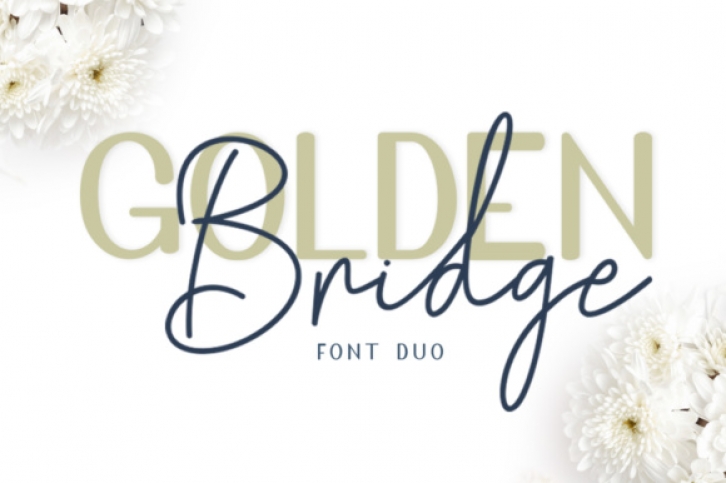
Golden Bridge is an amazing font duo, consisting of a signature script and a sans in three distinct weights/styles. This set has a contemporary, gorgeous feel and will add an editorial presence to your designs.